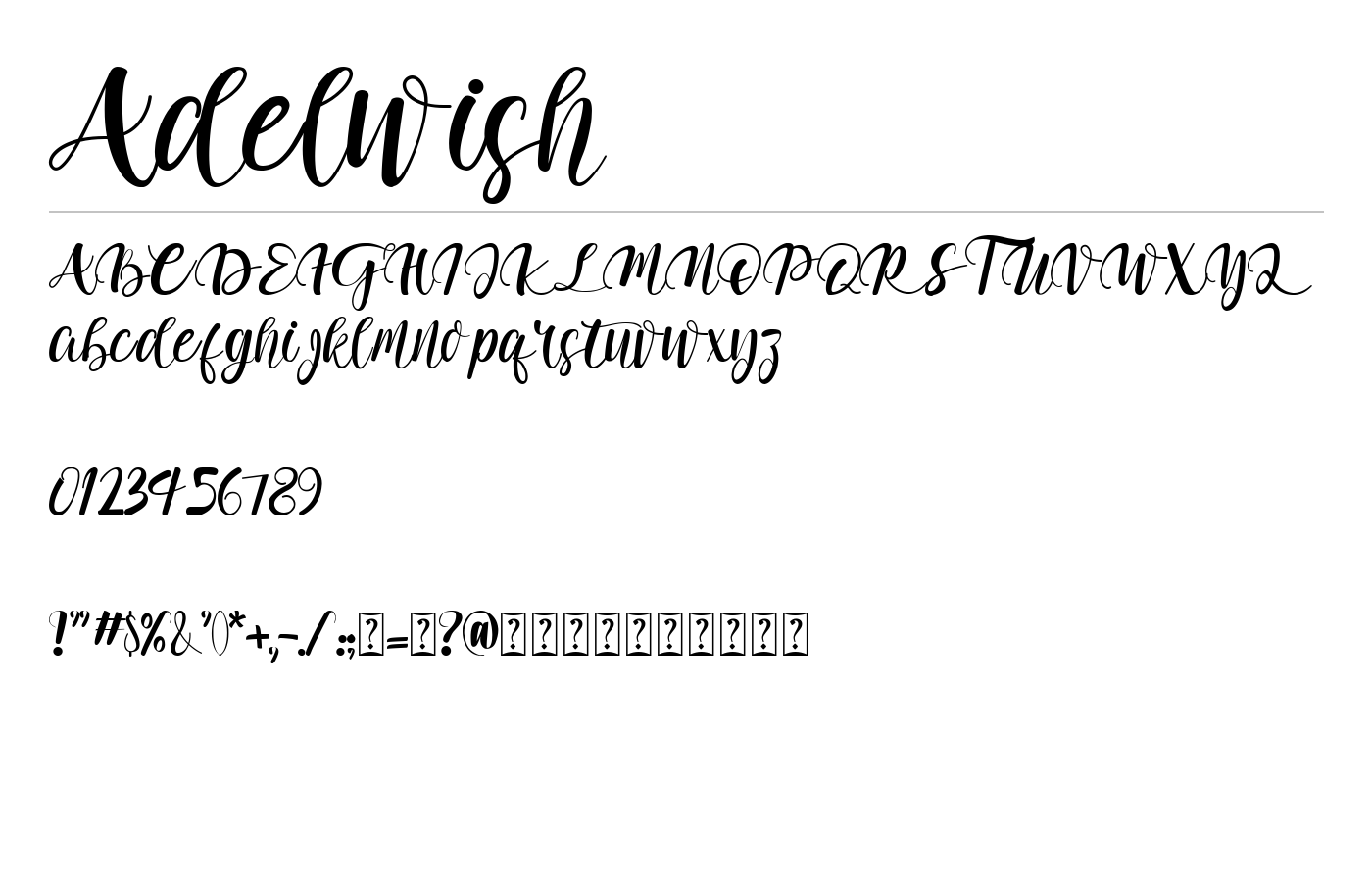
Adelwish is an elegant script font characterized by its smooth, flowing strokes and playful swashes that create a handwritten, artistic feel. Its medium contrast and fluid letterforms make it perfect for invitations, branding, and decorative projects where a touch of sophistication and charm is desired. This font works especially well for fashion, wedding designs, and creative headlines that need a stylish, personal touch.
Adelwish Font
About Adelwish Font